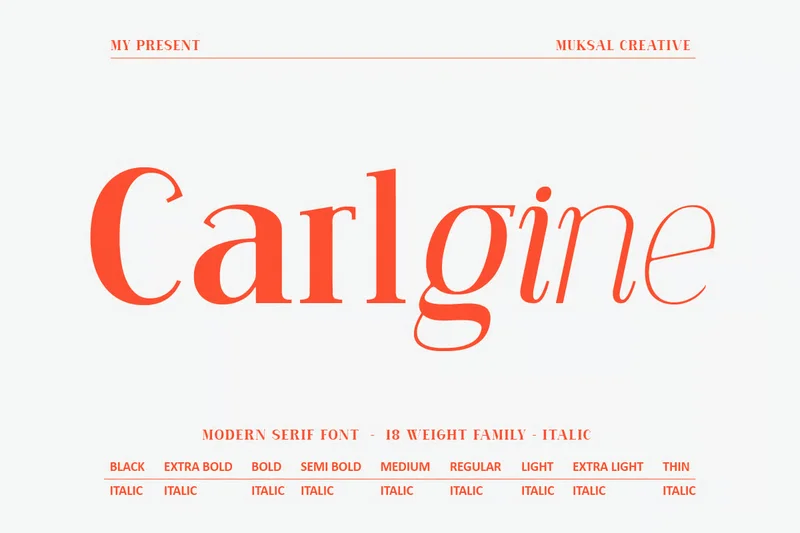
Carlgine – Elegant Serif Family Font
Carlgine is a unique and modern serif font family offering versatility and elegance. With 18 weights including Regular to Black (and italics), it delivers a balanced contrast suitable for both display and text settings. Featuring decorative alternates and stylistic glyphs, Carlgine brings a refined yet expressive touch to branding, editorial layouts, magazine headers, and sophisticated typographic design.